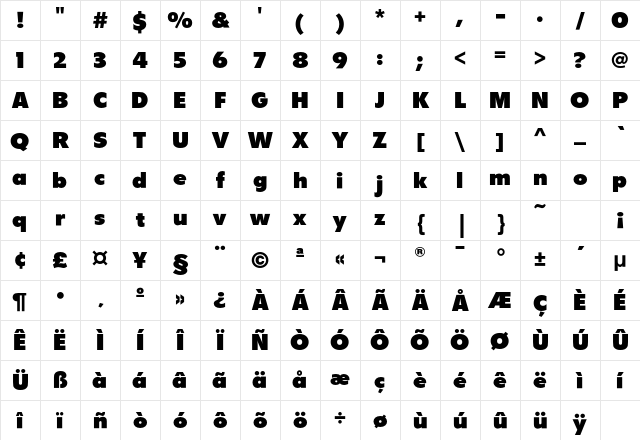
Complete FlyerEF Bold glyph index. Displaying only characters natively supported by FlyerEF Bold font.
FlyerEF is a composed and adaptable typeface that performs quietly and consistently across a wide range of design contexts. Its bold stroke weight gives it real presence on the page.